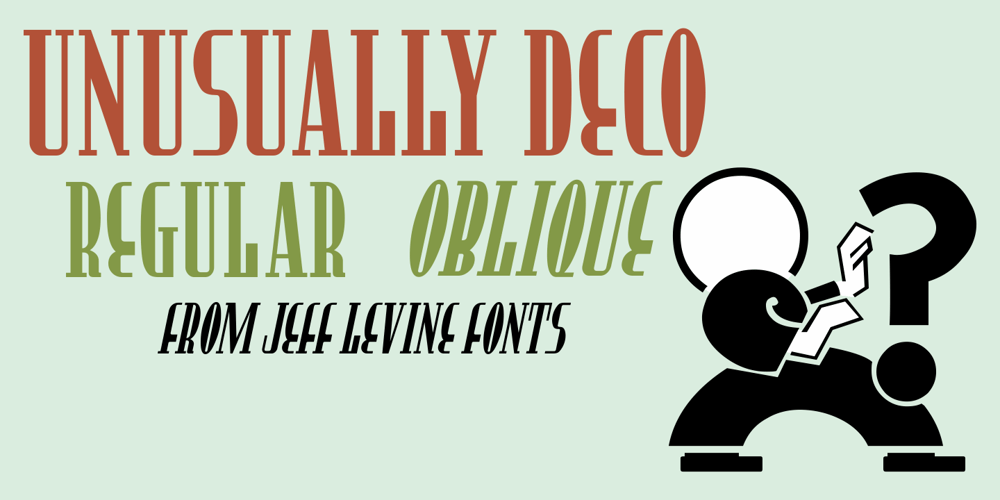
Unusually Deco JNL Font Family was designed by Jeff Levine and published by Jeff Levine. Unusually Deco JNL contains 2 styles and family package options. The hand lettered words “Pere Noel” under a vintage French magazine’s photo of Santa with two bikini-clad beauties inspired the digital version of this quirky, condensed type style.Unusually Deco JNL is available in both regular and oblique versionsFrom Wikipedia:“Père Noël “Papi Christmas”, sometimes called ‘Papa Noël’ (“Daddy Christmas”), is a legendary gift-bringer at Christmas in France and other French-speaking areas, identified with the Father Christmas and/or Santa Claus of English-speaking territories. Though they were traditionally different, all of them are now the same character, with different names, and the shared characteristics of a red outfit, workshop at the North Pole/Lapland, and a team of reindeer.”